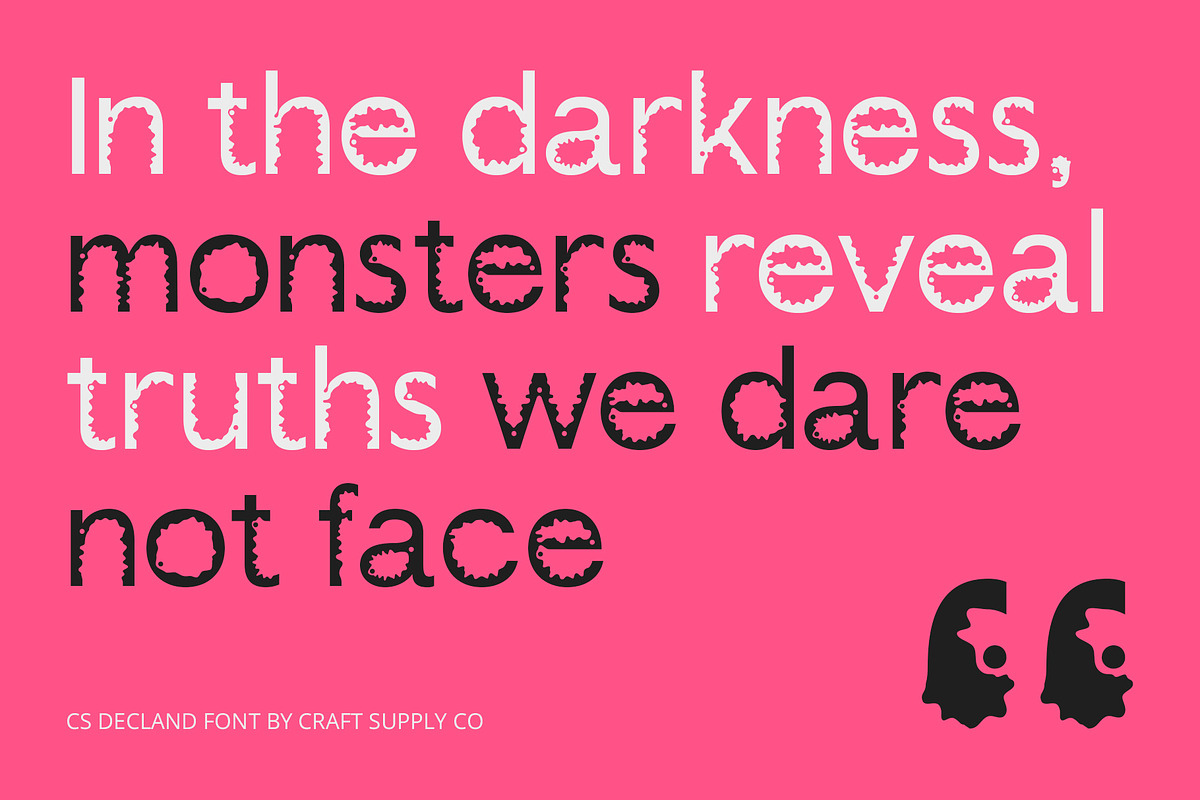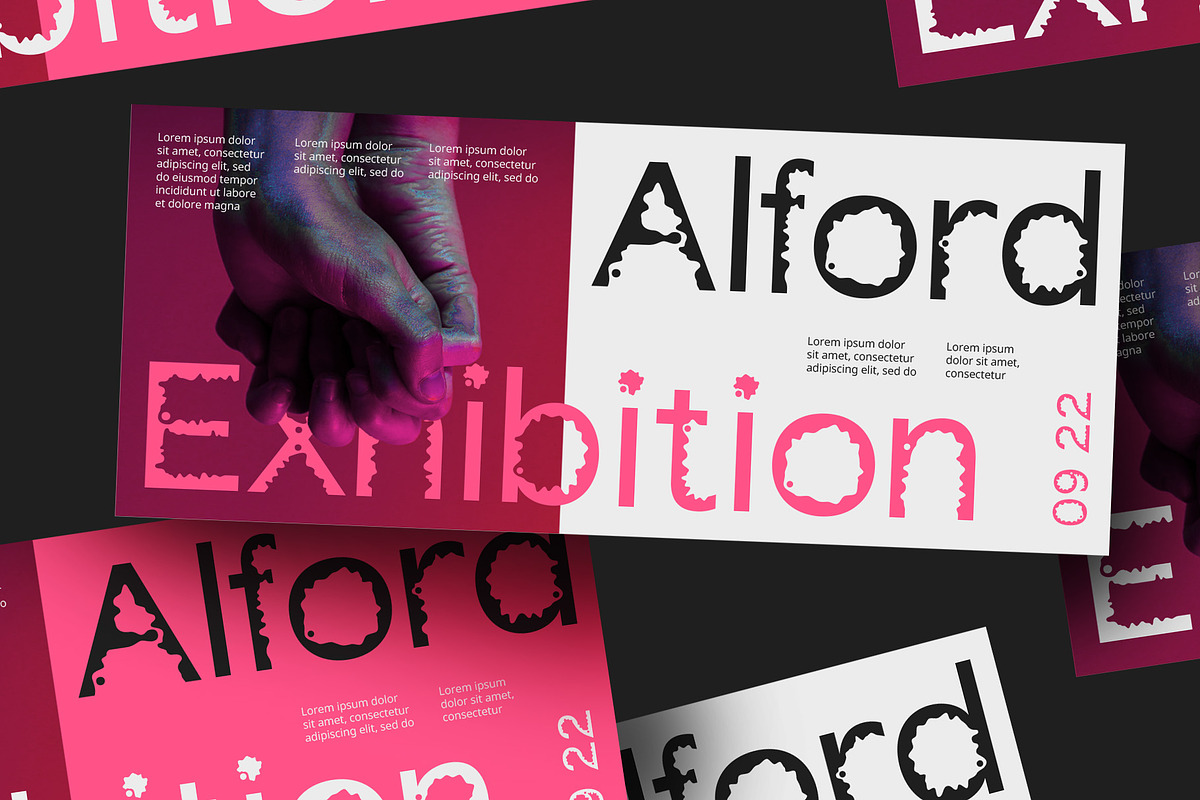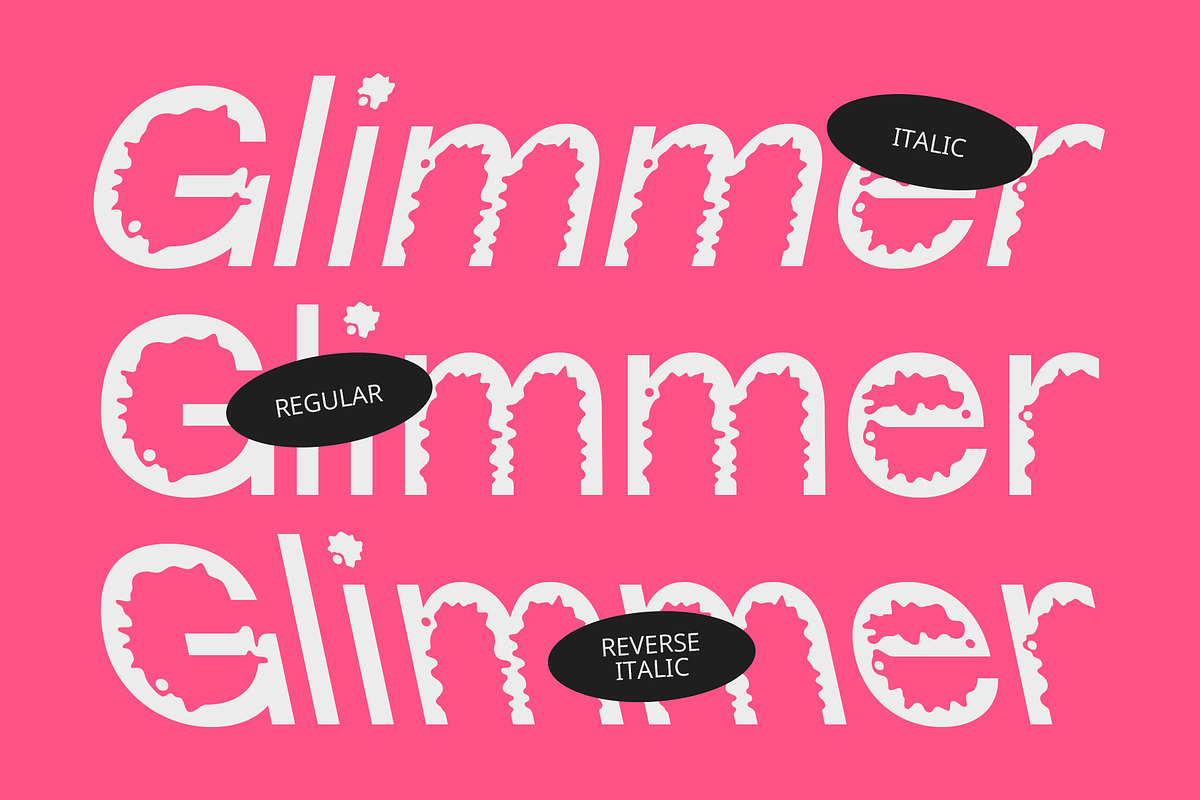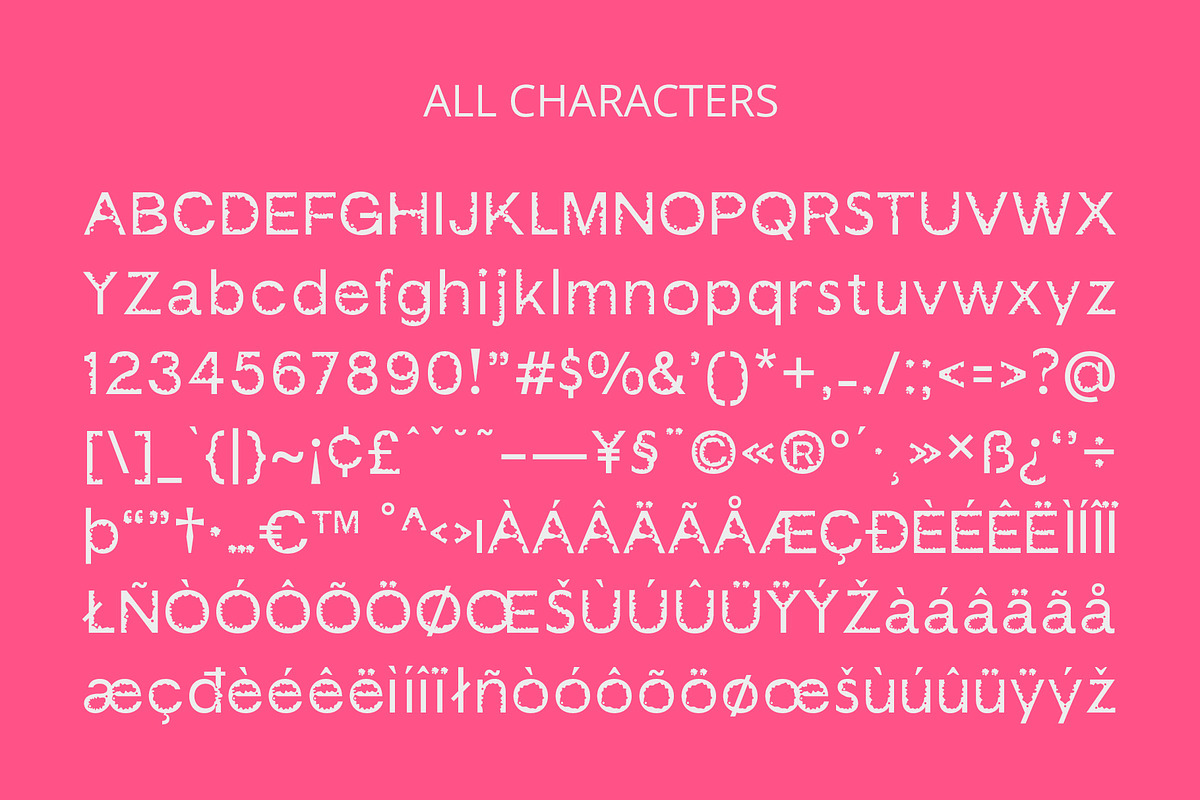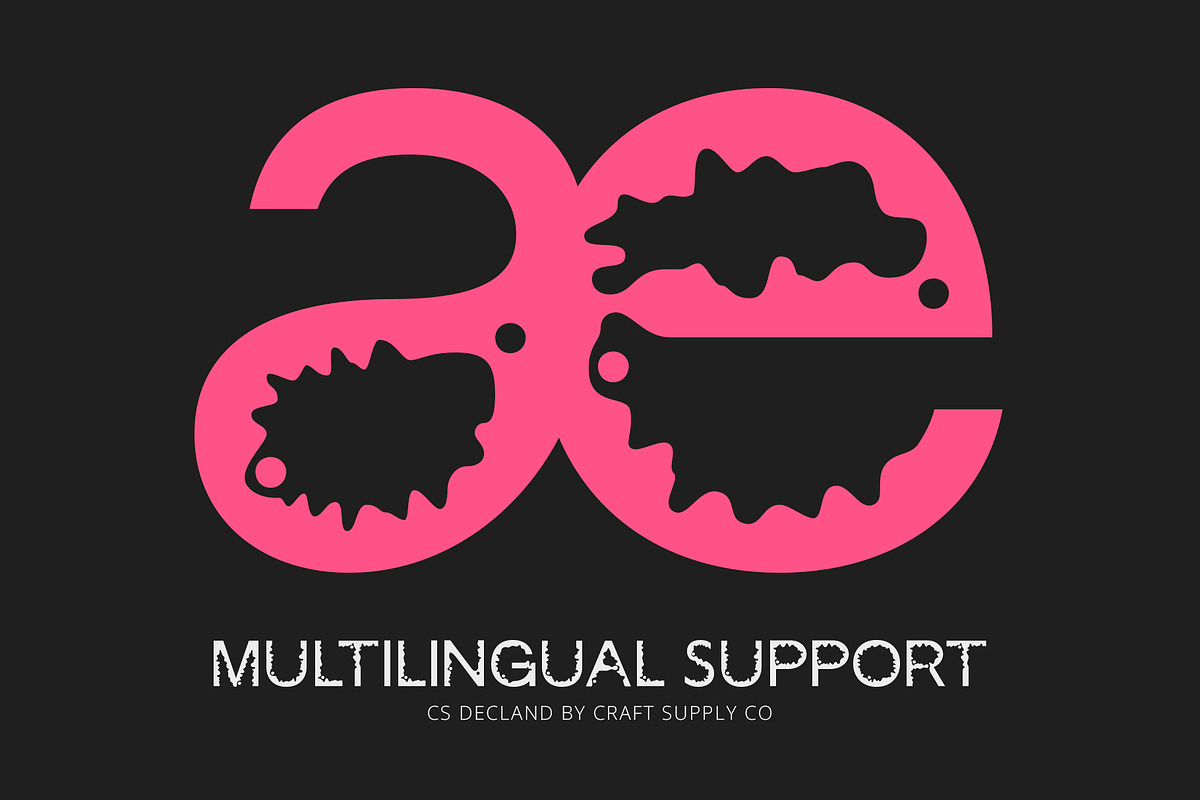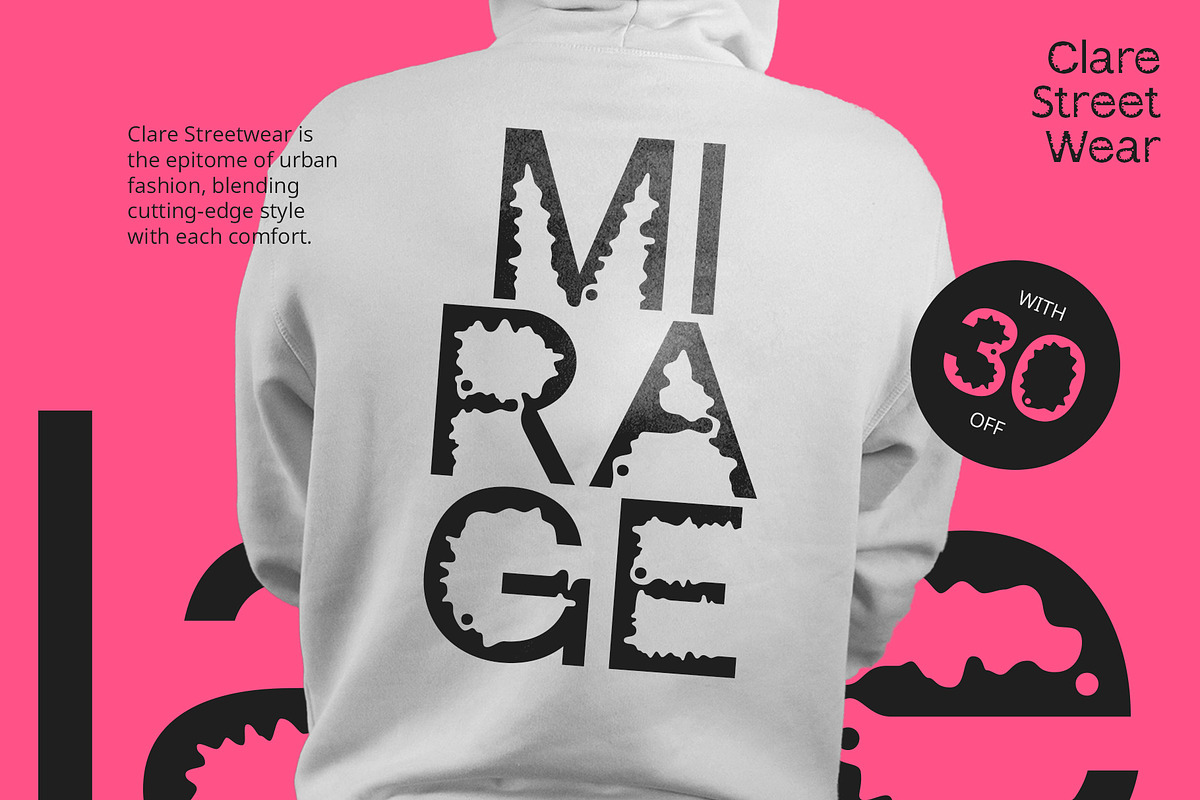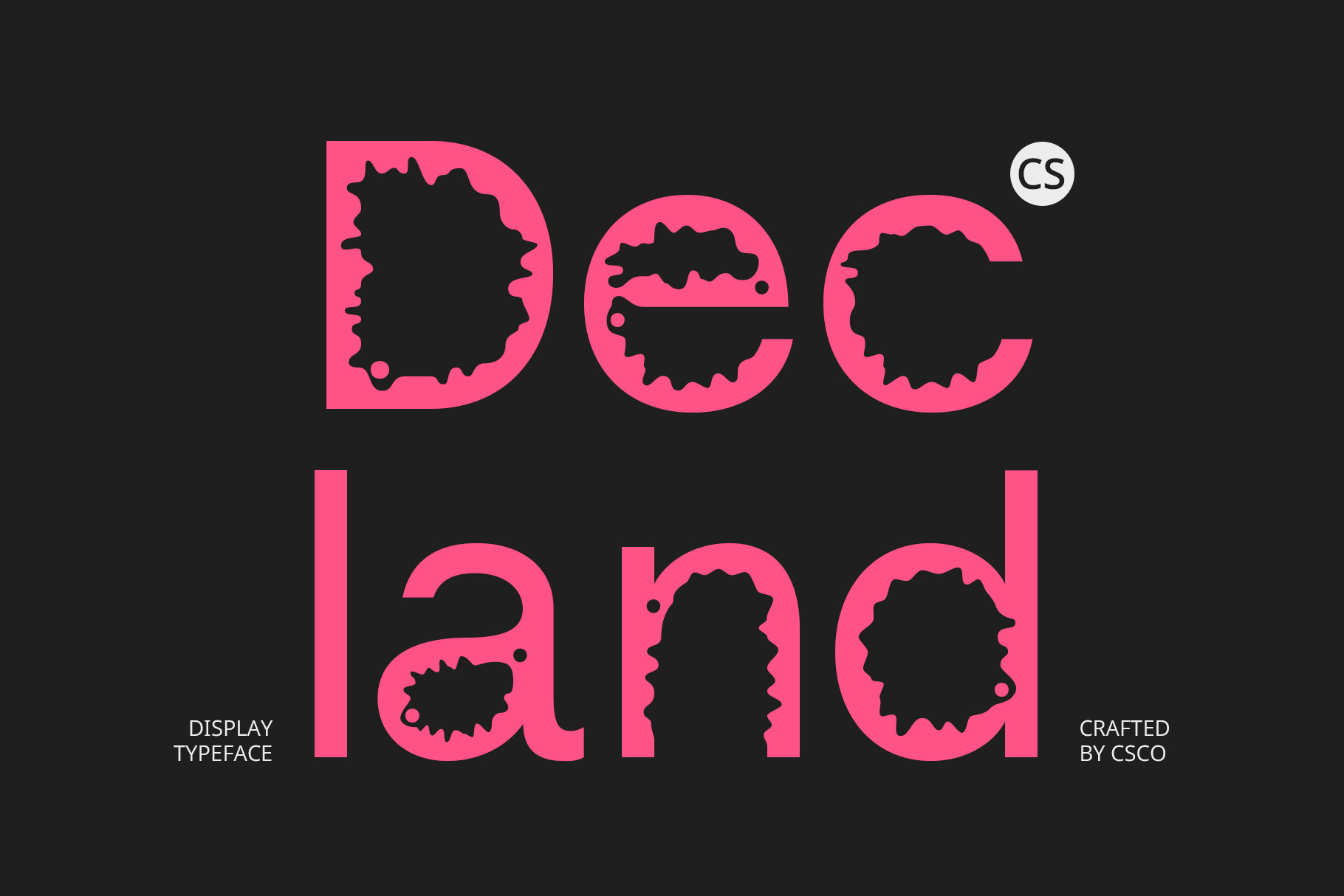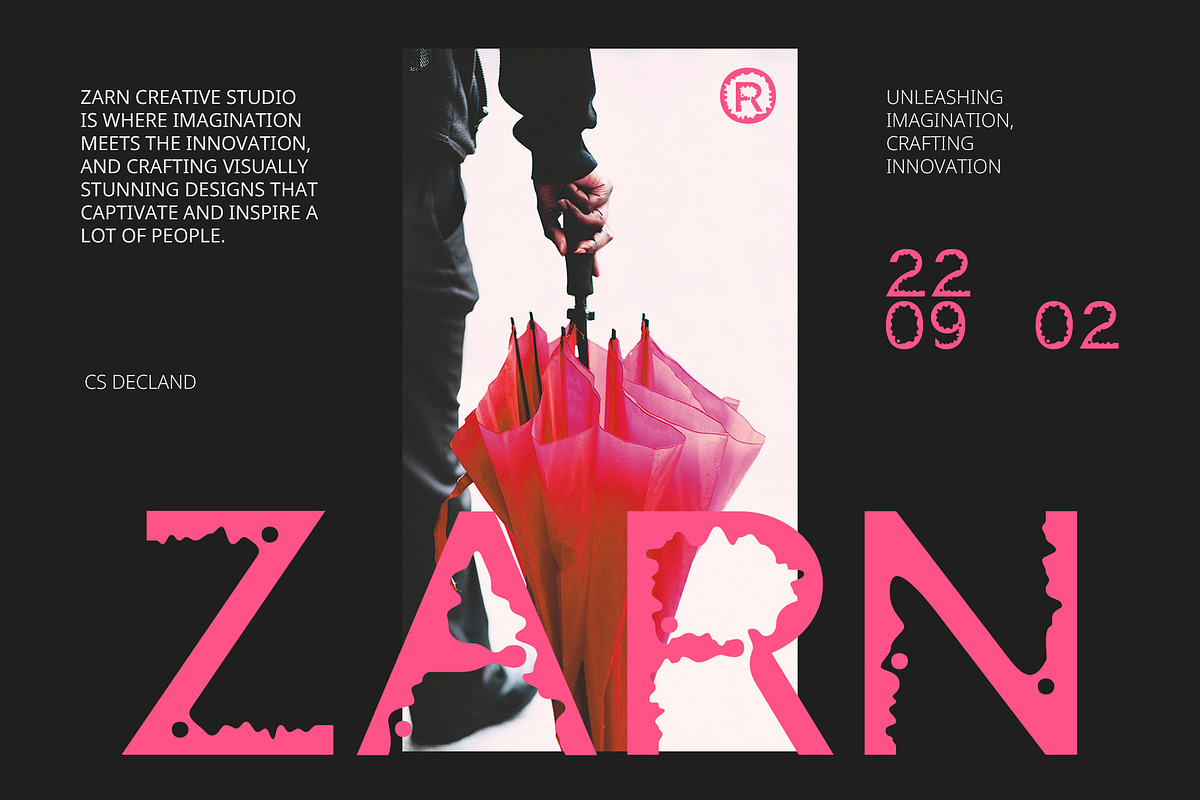
CS Decland – Psychedelic Font
CS Decland – Psychedelic Font: Unleash Vibrant Creativity
Bold and Striking Design CS Decland is a psychedelic display font that features a striking and bold design characterized by curved, swirling, and distorted shapes. Its unique letterforms create an eye-catching presence, making it an excellent choice for designs that need to stand out. The playful and adventurous nature of this font instantly captures attention, encouraging a sense of exploration and fun.
Dynamic Patterns and Bright Colors Infused with bright colors and dynamic patterns, CS Decland fosters an atmosphere of energy and joy. The vibrant palette and funky design elements work together to evoke feelings of creativity and excitement. This font excels in environments where expression and originality are celebrated, making it perfect for artistic applications that demand a lively touch.
Captivating Atmosphere in Every Design CS Decland’s uniqueness lies in its ability to transform ordinary text into a visual spectacle. It infuses each piece with a distinct atmosphere, encouraging engagement and sparking interest. With this font, you can elevate your projects, making them memorable and impactful. Embrace the psychedelic vibe and let your designs shine with energy and creativity.